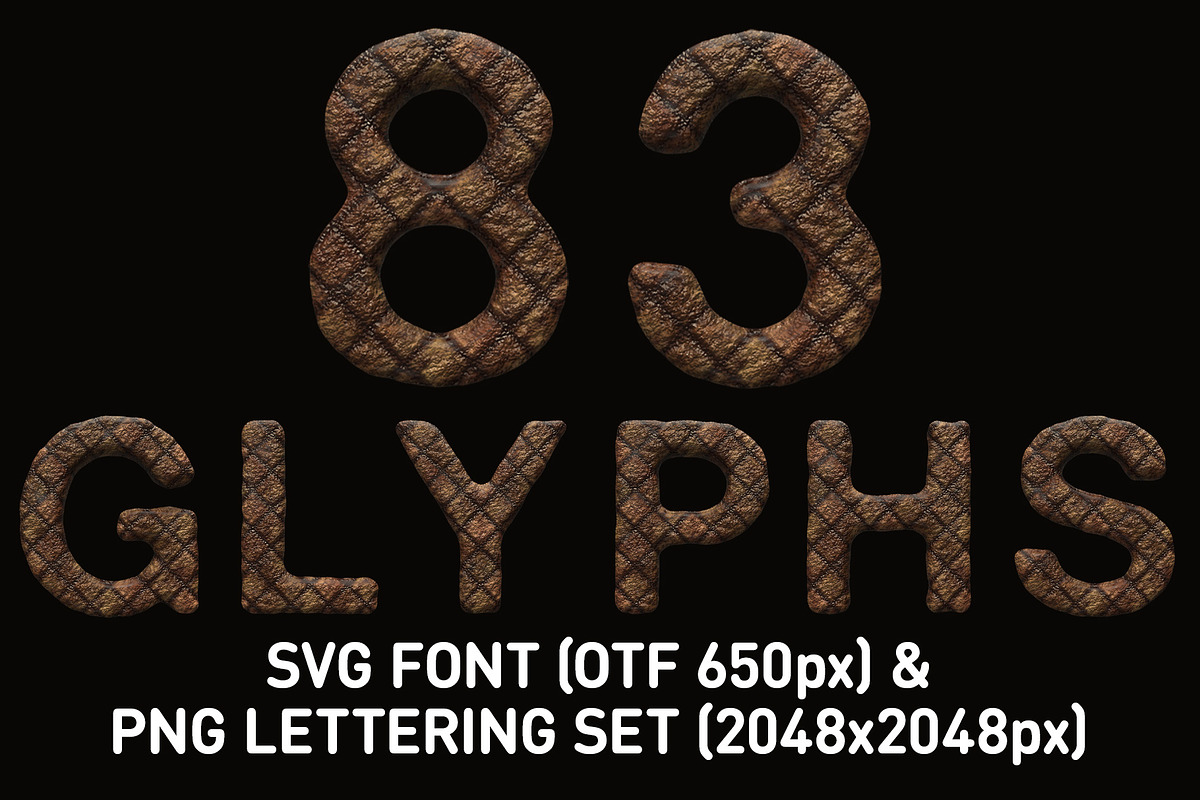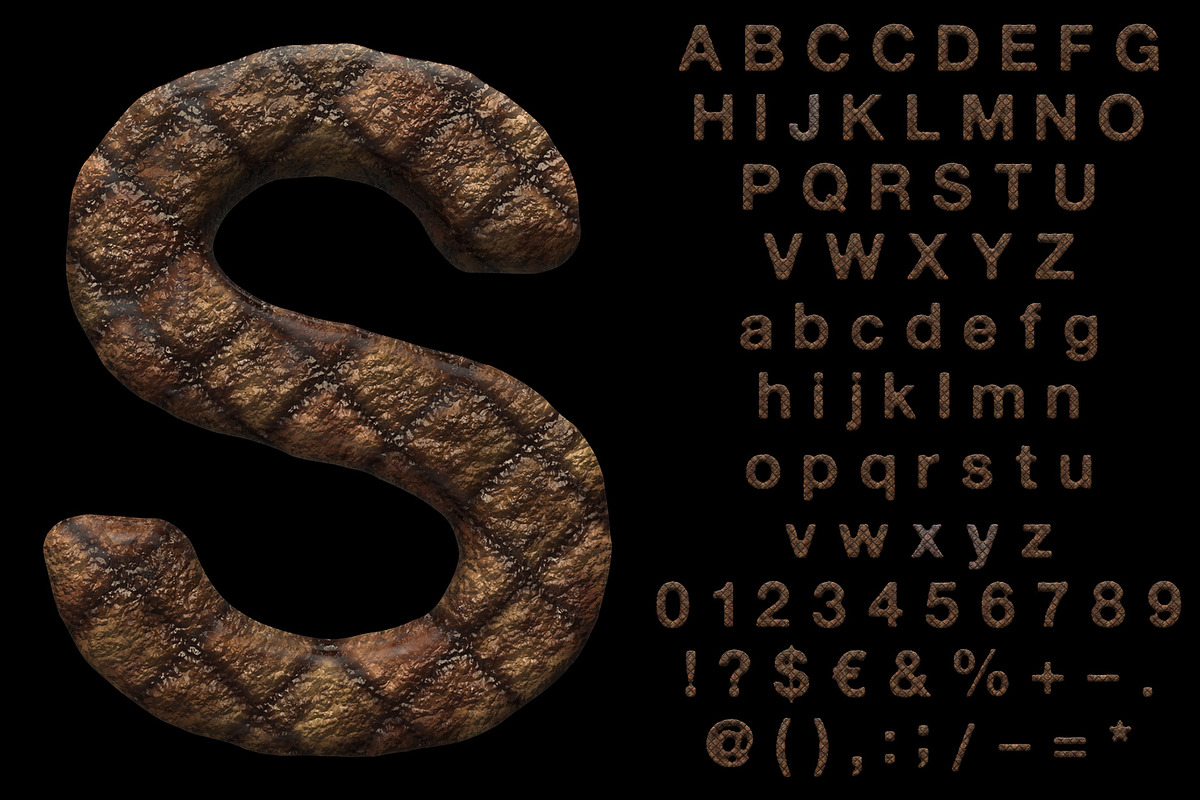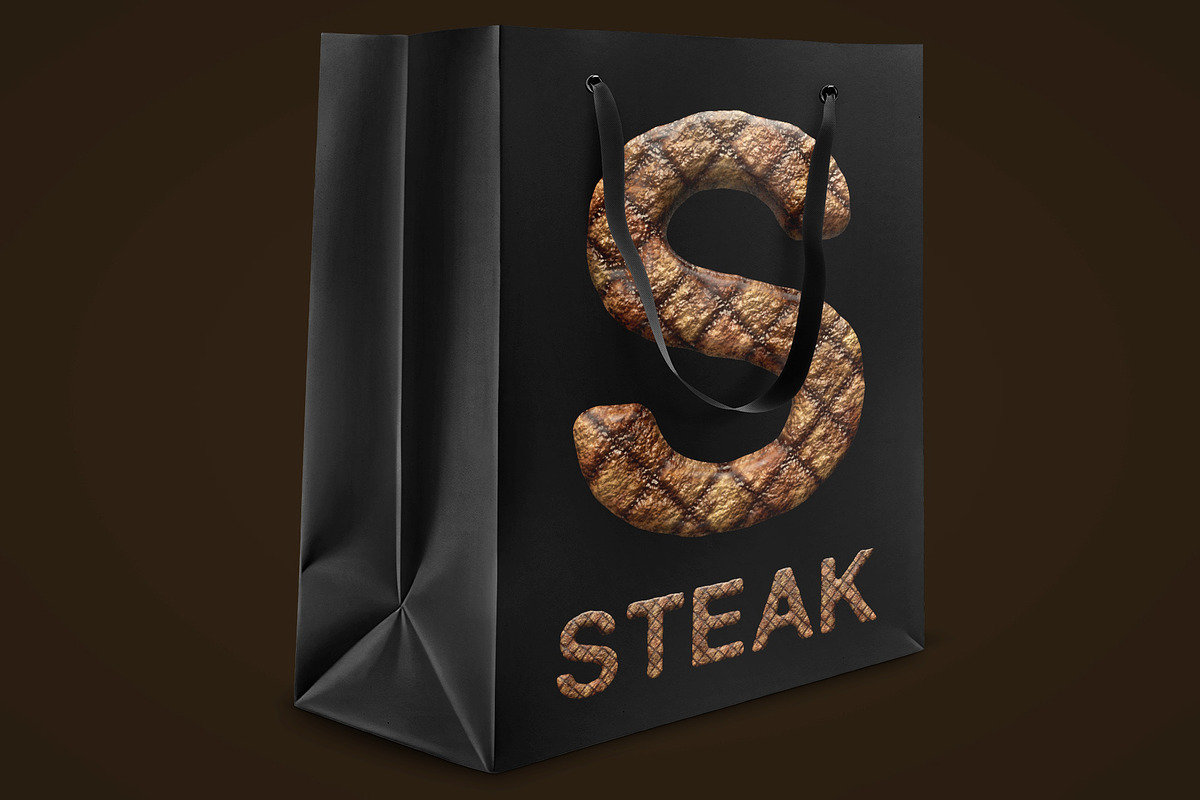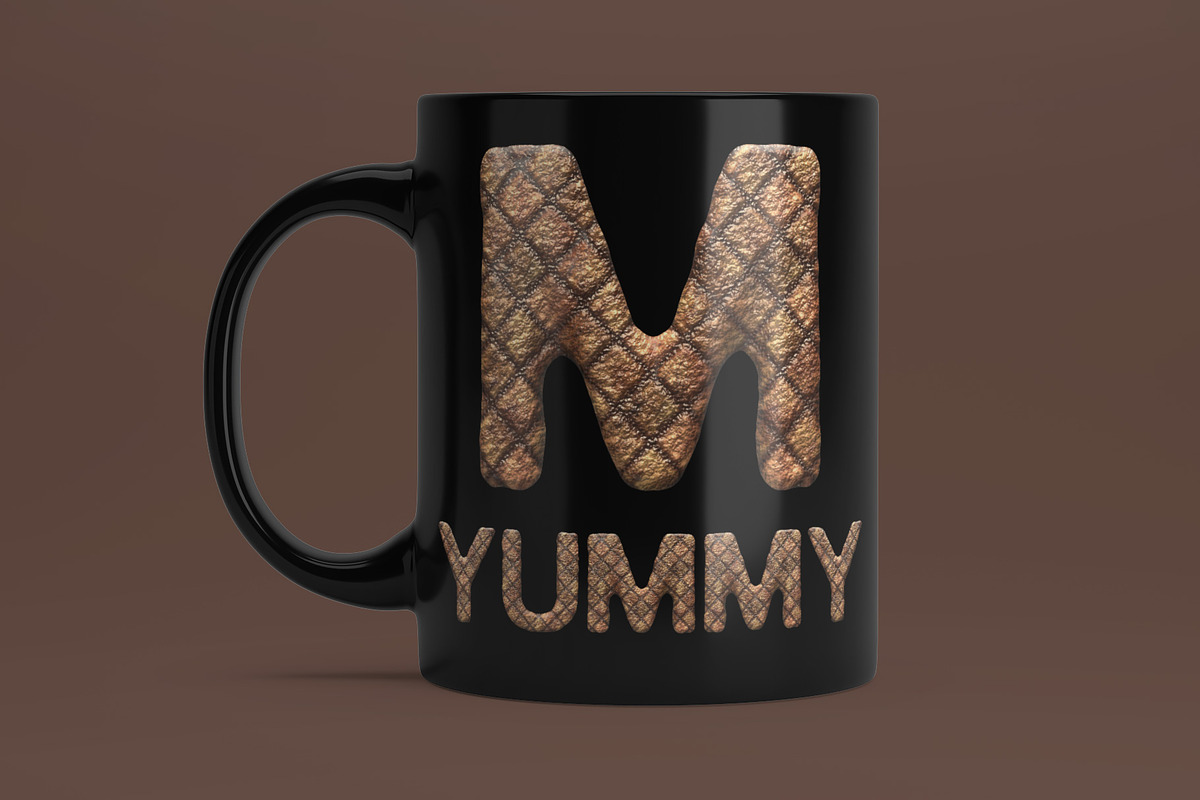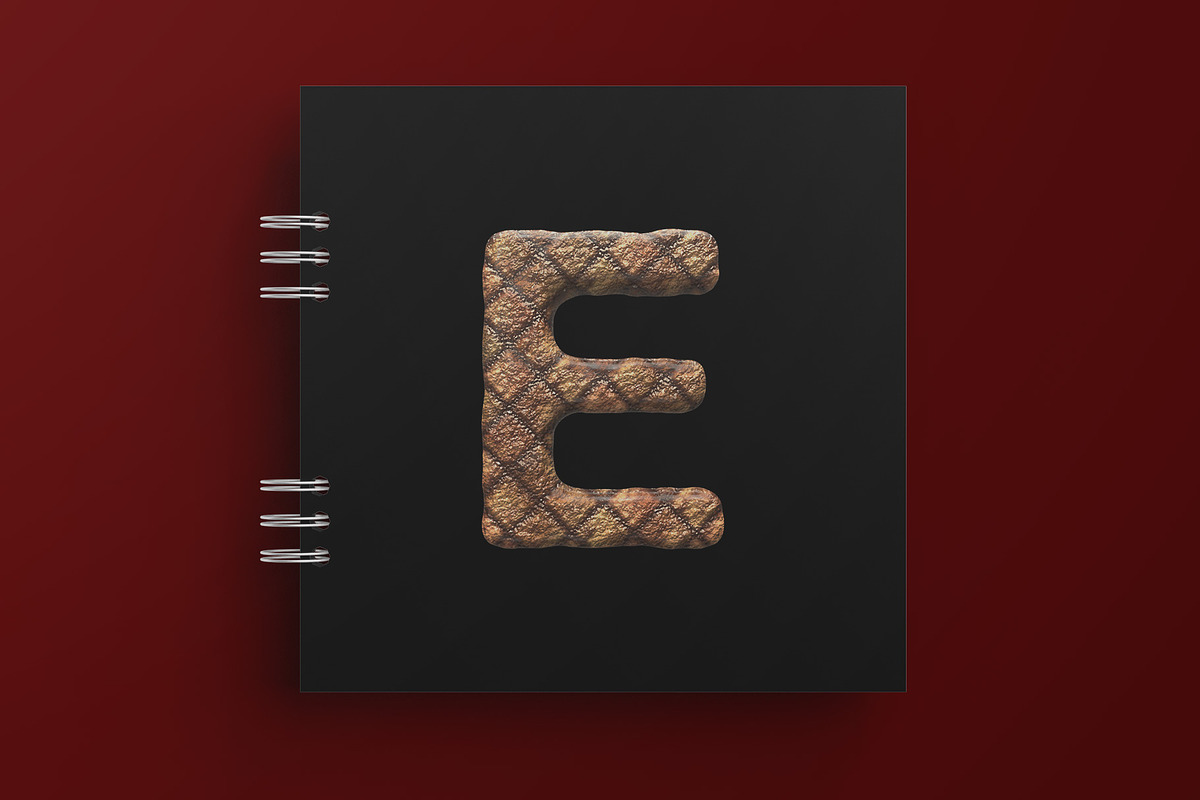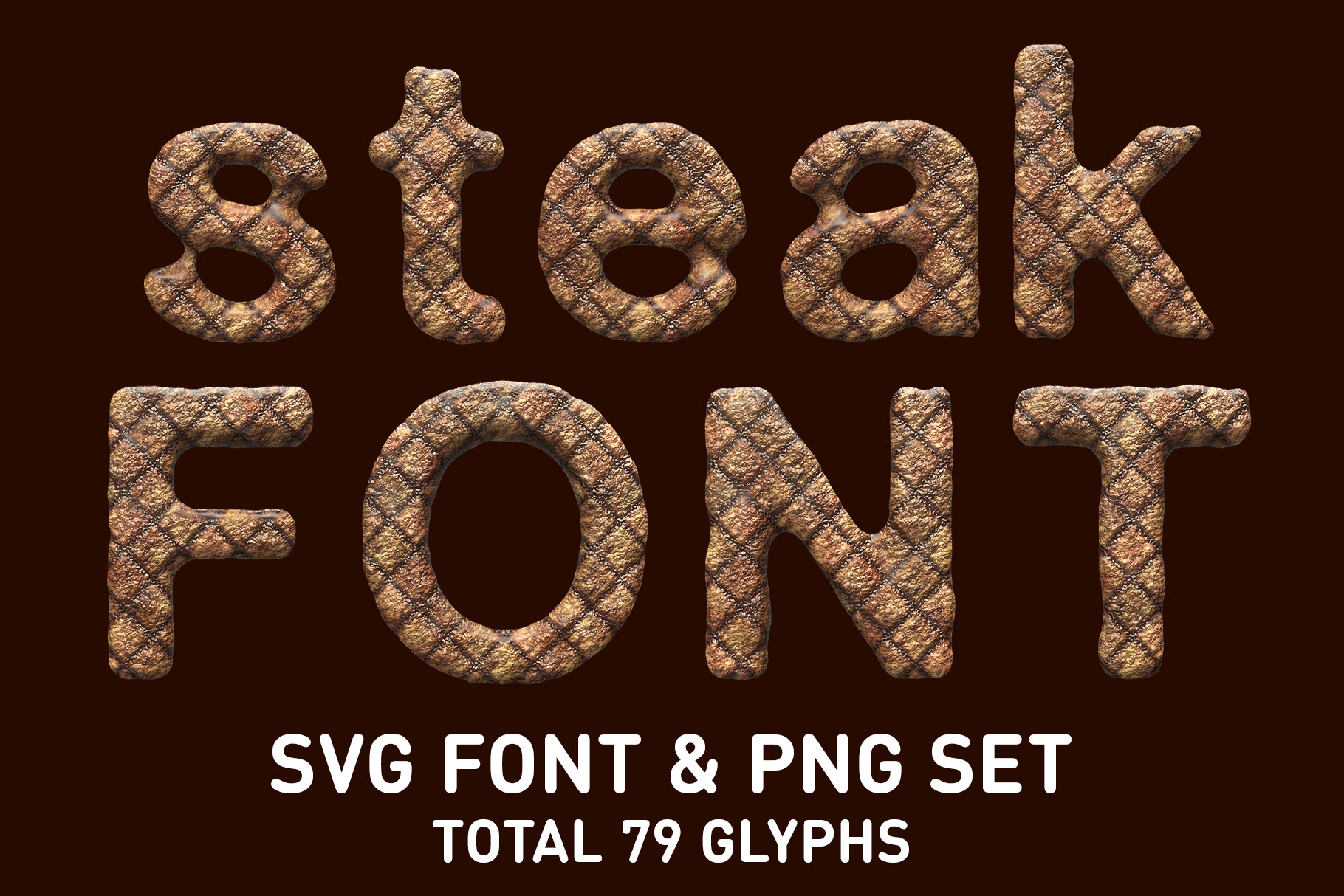
Grilled Steak Font & PNG Set
The Deliciously Designed Grilled Steak Color SVG Opentype Font and PNG Lettering Set
Make Your Text Stand Out with this Deliciously 3D Rendered Font! Enjoy the crispness and clarity of this high-resolution font, with its unique and eye-catching 3D rendered designs, and its ability to be scaled to any size without losing its quality. This font is perfect for adding a unique and personal touch to any project so your content will stand out from the crowd.
MS Grilled Steak SVG Font. A high definition OpenType-SVG font built-in 3D. Contains uppercase characters, numerals and basic punctuation. (Draw height roughly 650 pixels). All letters and glyphs that comprises this font you can see on the preview.
- Uppercase Letters : A B C D E F G H I J K L M N O P Q R S T U V W X Y Z
- Lowercase Letters : a b c d e f g h i j k l m n o p q r s t u v w x y z
- Numbers : 0 1 2 3 4 5 6 7 8 9
- Others : ! ? $ € & % + - . @ ( ) , : ; / _ - = ' *